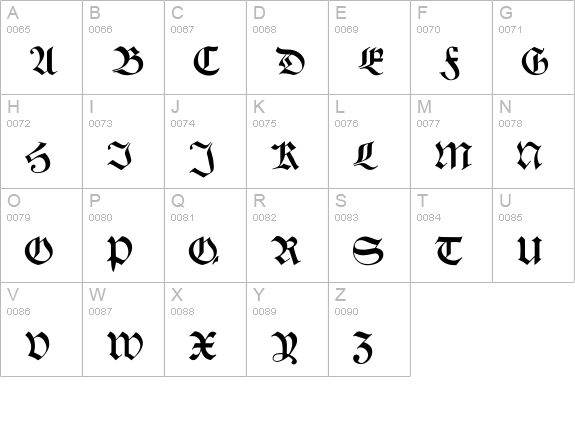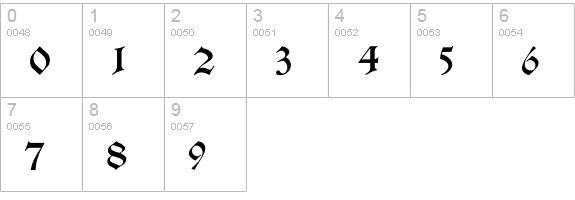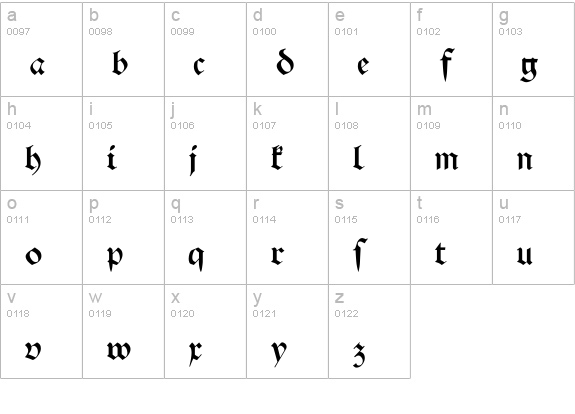
Schwaben Alt Bold Font Details
Schwaben Alt Bold is a strong, high-contrast variant in the Schwaben typeface family \xE2\x80\x94 well suited to headlines, attention-grabbing titles, and strong calls-to-action.
Schwaben Alt Bold font is a stunning display typeface that exudes a sense of boldness and elegance. It beautifully captures the essence of a classic, traditional style while maintaining a contemporary edge. With its strong and confident letterforms, this font is perfect for creating eye-catching headlines, striking logos, and captivating designs. The thick strokes and distinctive serifs of Schwaben Alt Bold make it stand out in any project. Its robust and commanding presence on the page demands attention and leaves a lasting impression. Whether you're designing a magazine cover, a poster, or a website, this font is sure to make a statement. One of the best features of Schwaben Alt Bold font is that it is freely available to download at FontsMarket.com. This means that you can easily access this exceptional font and incorporate it into your projects without any hassle. The accessibility and convenience of being able to download it for free ensure that you have the freedom to explore your creativity to the fullest. Schwaben Alt Bold font is not only visually striking but also highly versatile. It can be used in a variety of design contexts, from branding and advertising to packaging and signage. Its timeless appeal and superior legibility make it suitable for both print and digital applications. In conclusion, Schwaben Alt Bold font is an exceptional typeface that combines classic elegance with a contemporary twist. Its bold and confident design, coupled with its availability for free download at FontsMarket.com, makes it a valuable asset for any designer or creative professional. Embrace the boldness and elegance of Schwaben Alt Bold font and elevate your designs to new heights.